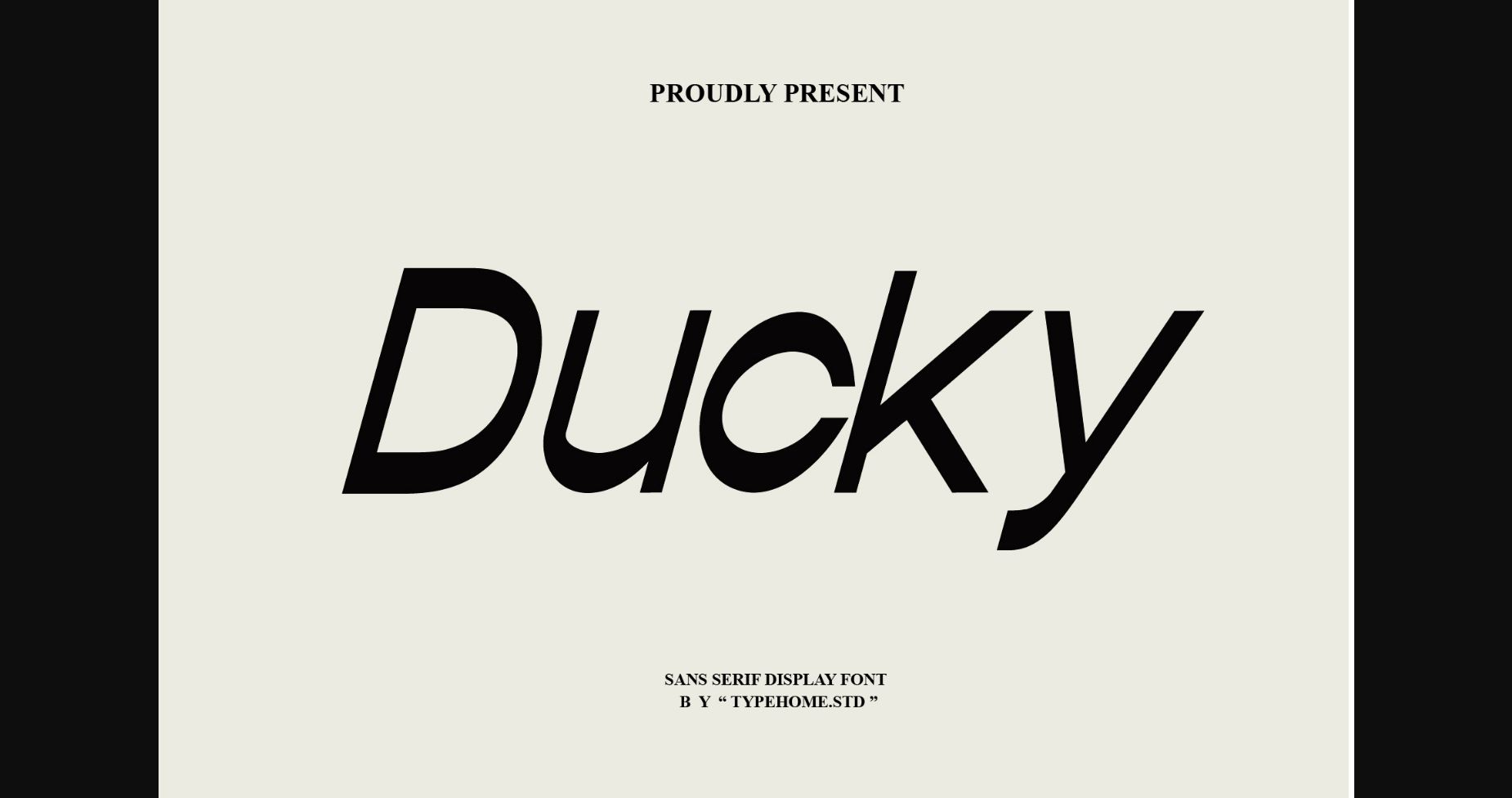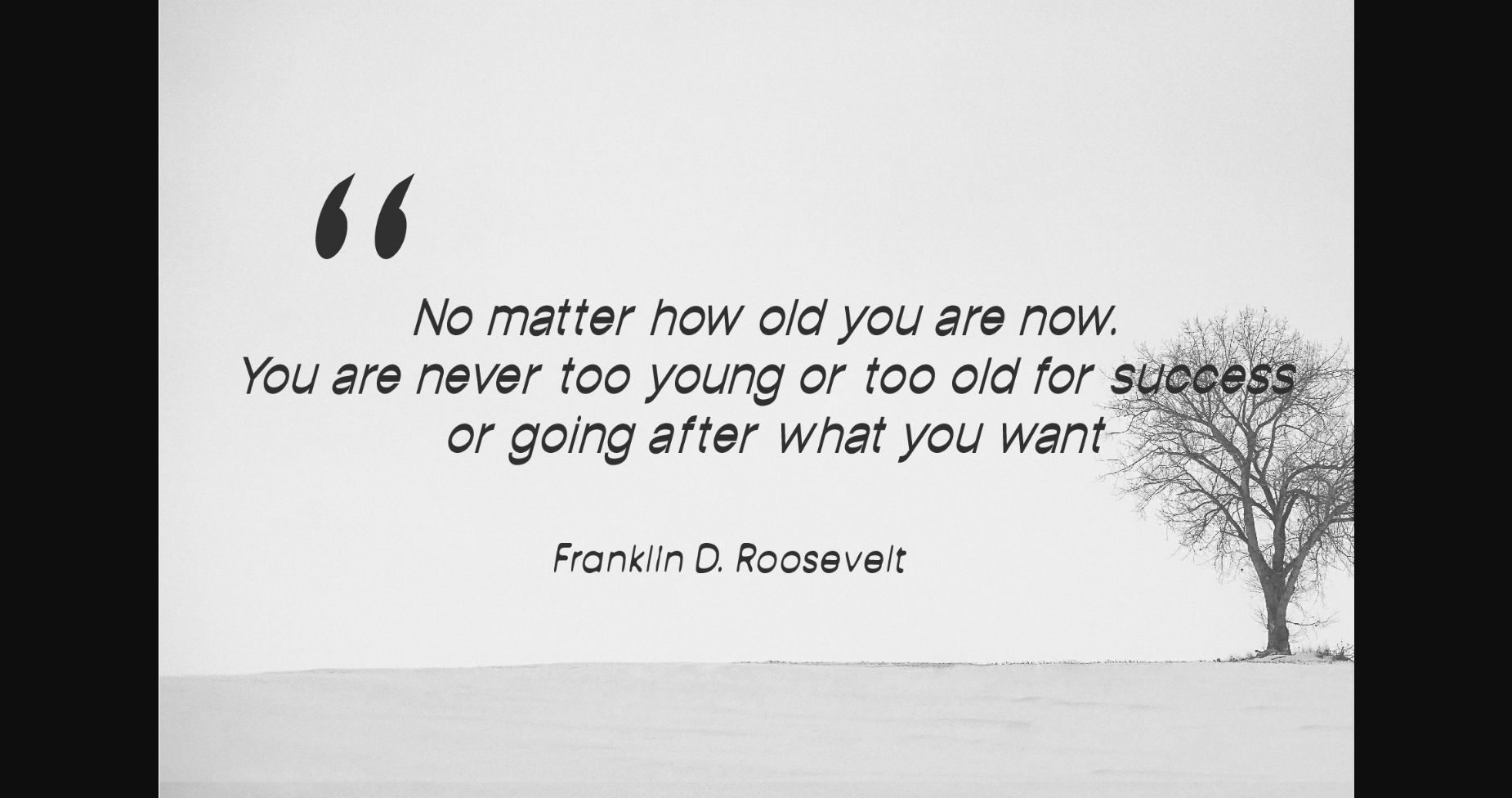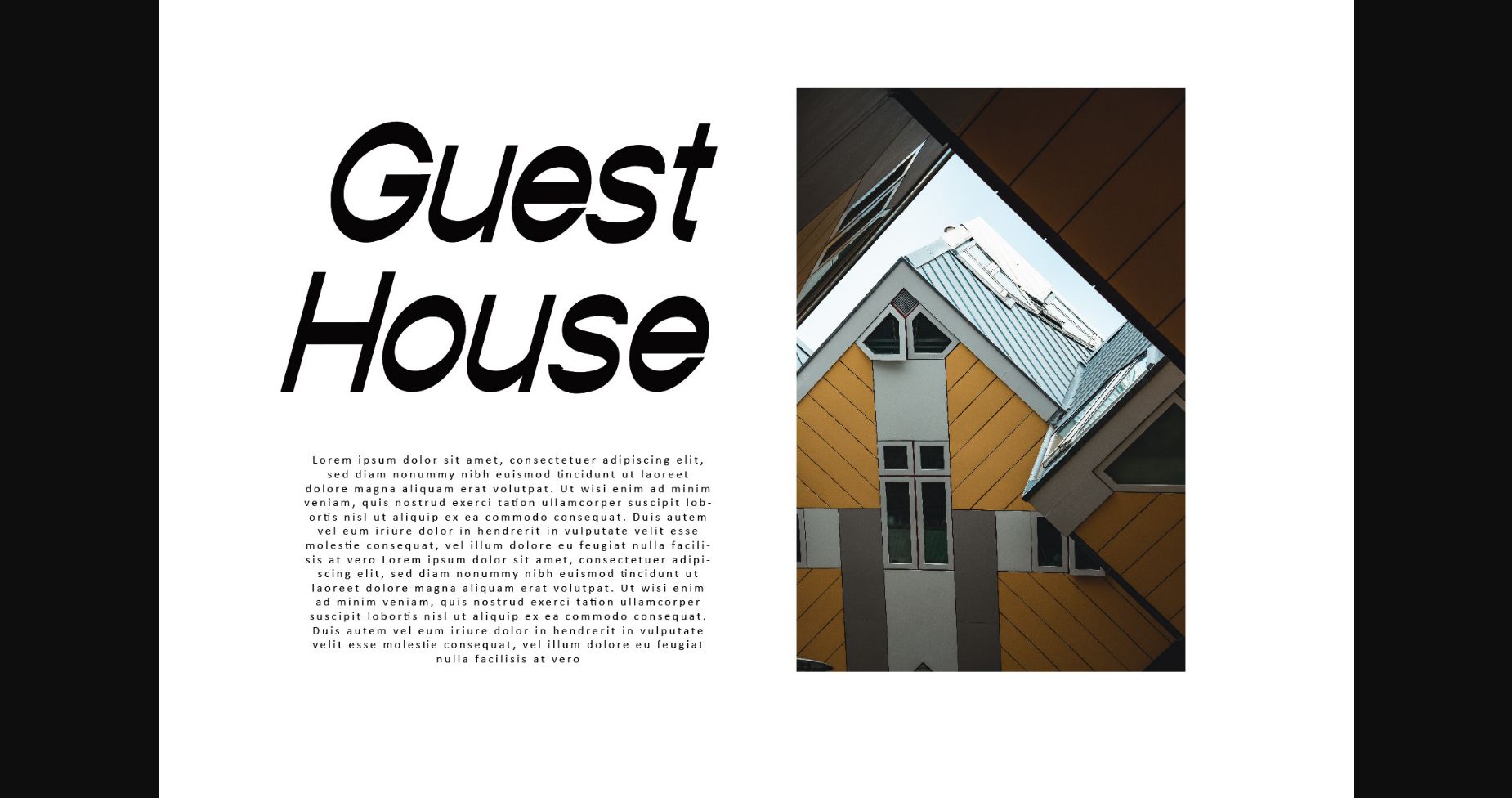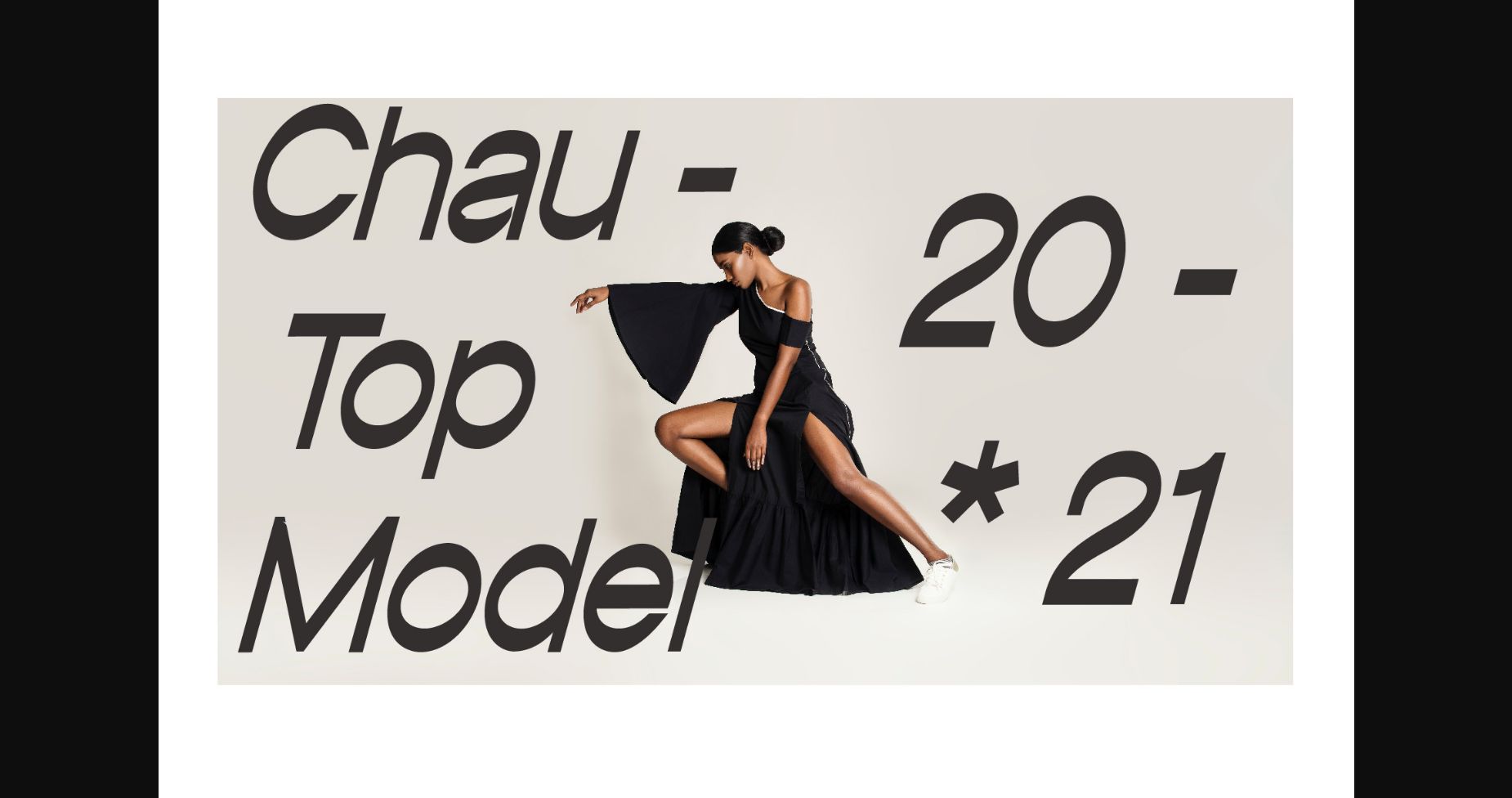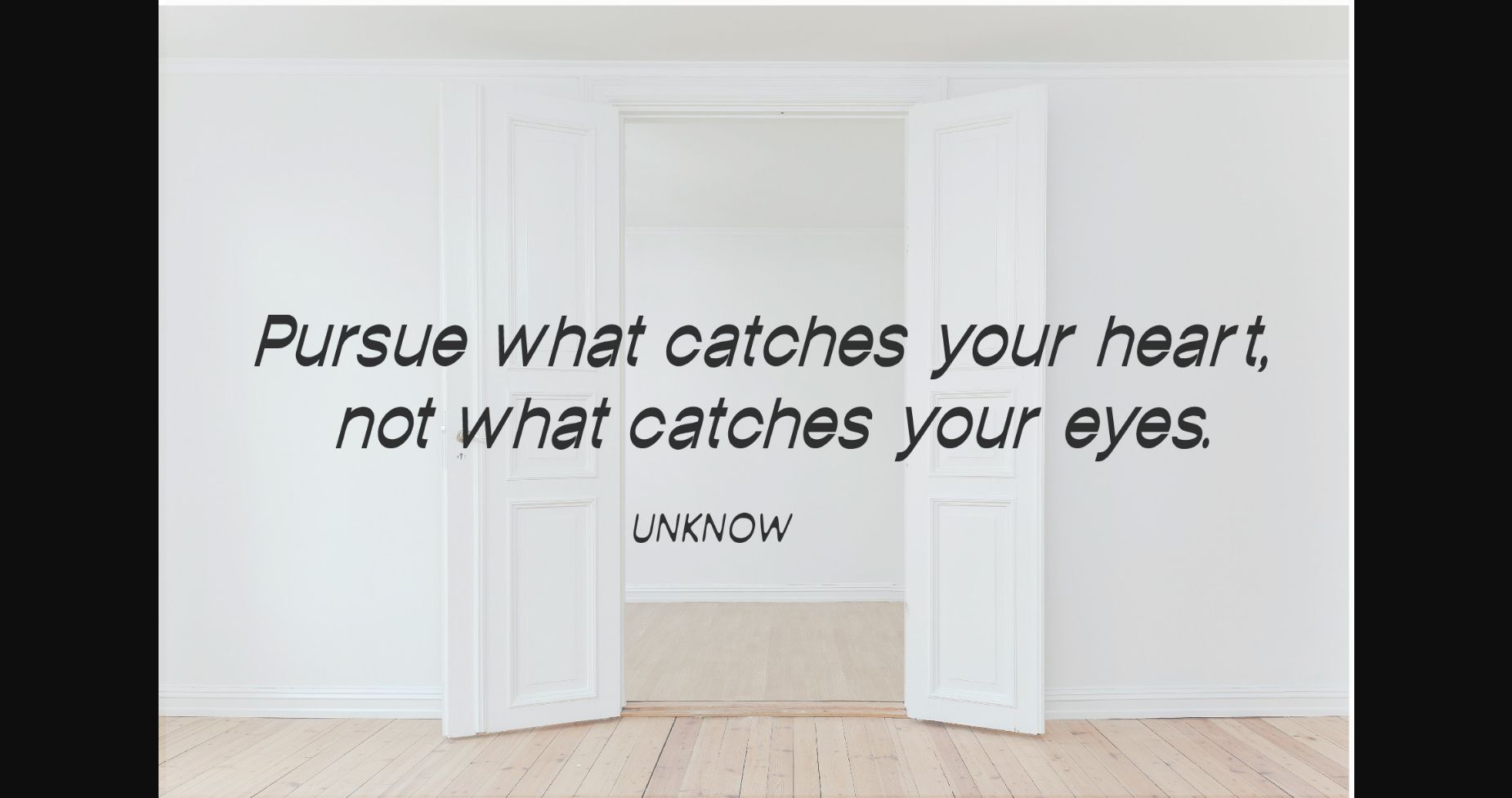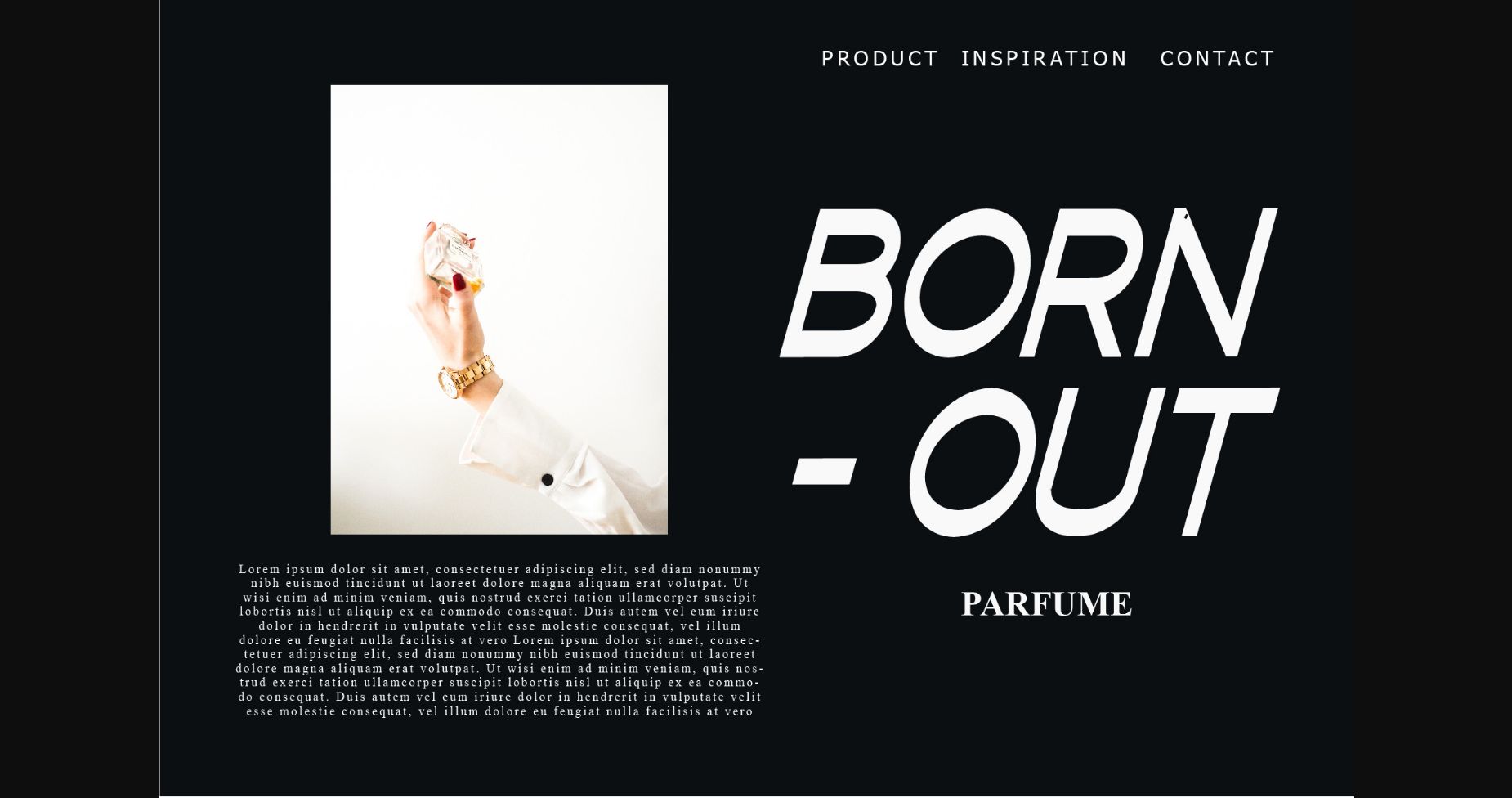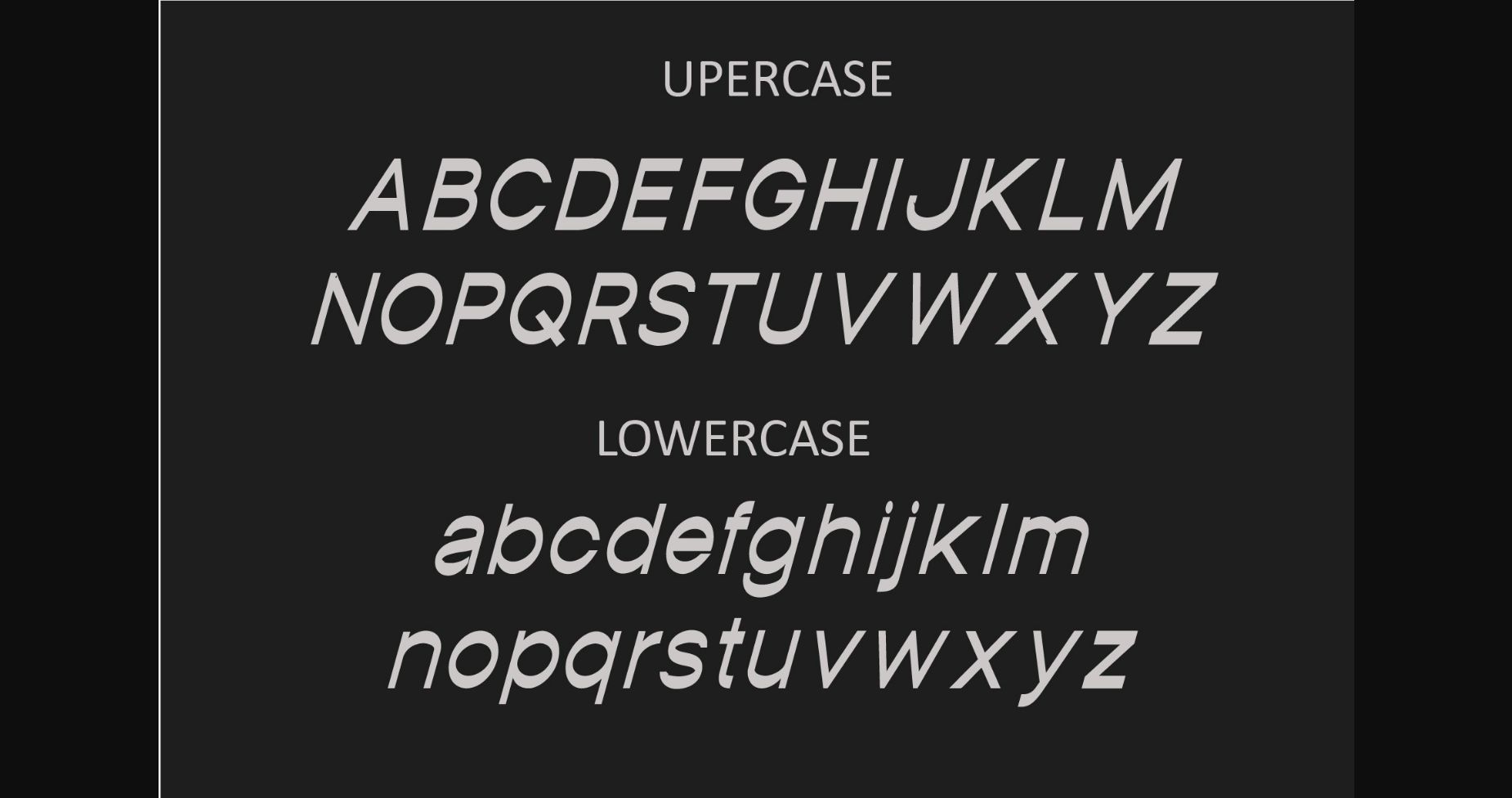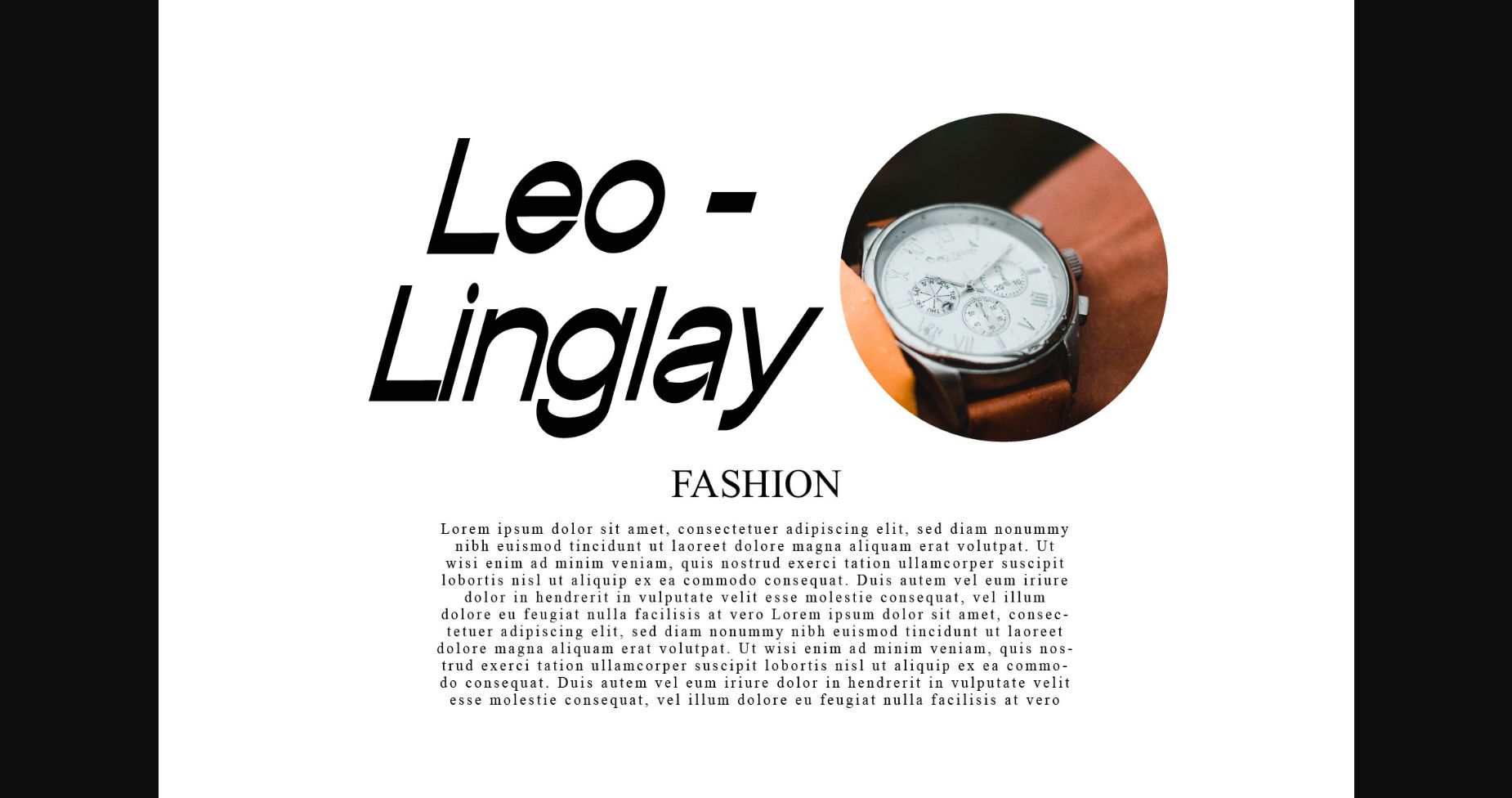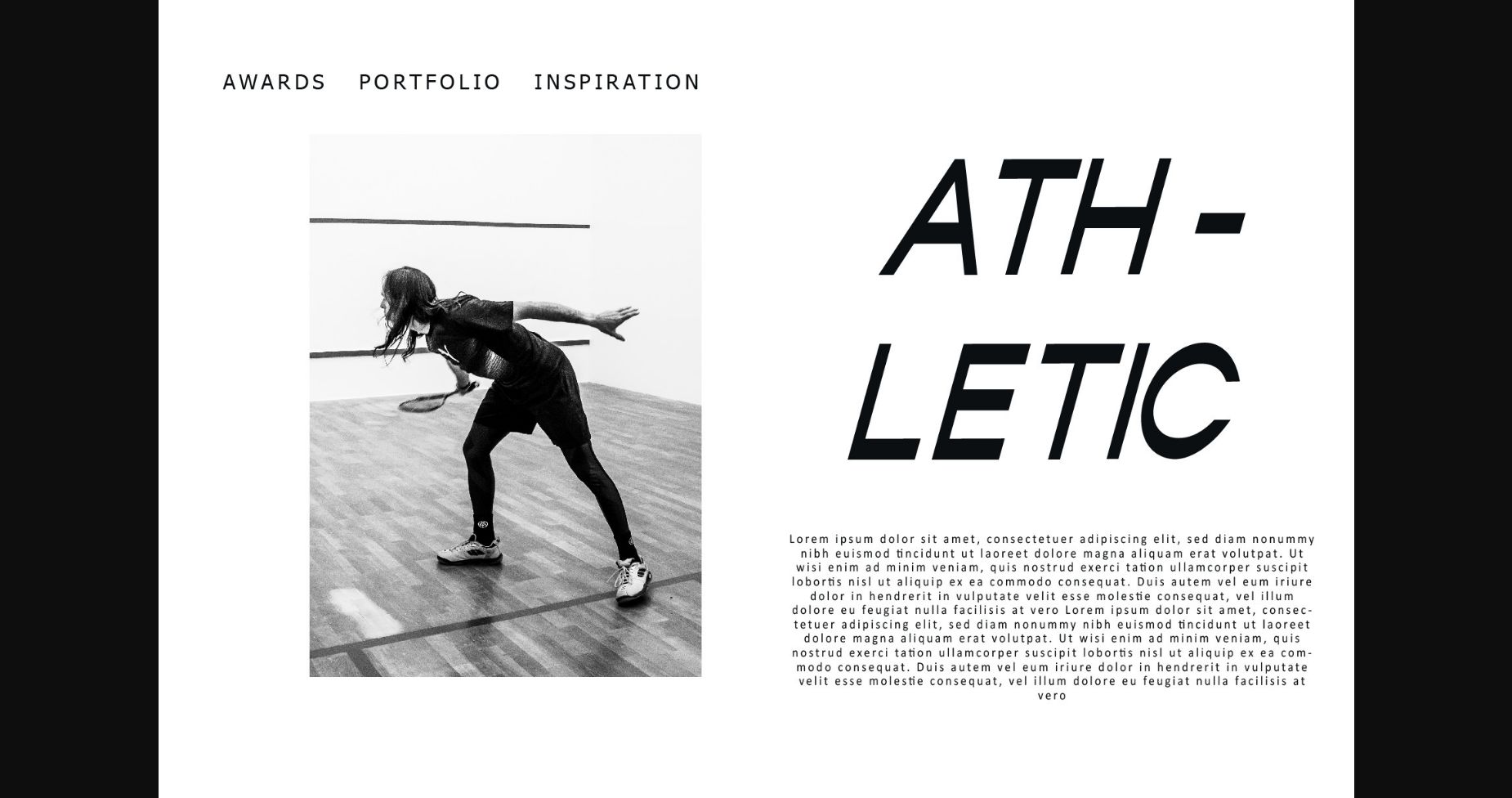
HomeSans Serif FontsDucky Font Sans Serif Fonts Ducky Font FacebookXPinterestWhatsApp 1 of 11 ... Ducky Font Poster 2... Ducky Font Poster 3... Ducky Font Poster 4... Ducky Font Poster 5... Ducky Font Poster 6... Ducky Font Poster 7... Ducky Font Poster 8... Ducky Font Poster 9... Ducky Font Poster 10... Ducky Font Poster 11... About Ducky Font Ducky is a minimal and neat sans serif font. It can easily be matched to an incredibly large set of projects, so add it to your creative ideas and notice how it makes them stand out! DOWNLOAD NOW People also explored Summer Grow Font Mackyloo Font Team of Stars Font Winslet Font Magdeburg Font MultiType Lines Narrow 2 Font Buchero Font Golden Dream Duo Font Miskola Font 314 0 TagsDuckyDucky Font Previous articleFather FontNext articleHazy Moon Font LEAVE A REPLY Cancel reply Comment: Please enter your comment! Name:* Please enter your name here Email:* You have entered an incorrect email address! Please enter your email address here Website: Save my name, email, and website in this browser for the next time I comment. Personal Use Free Adrenaline Personal Use Free Read more about this font Avagan Personal Use Free Read more about this font Barokah Personal Use Free Read more about this font Simple Personal Use Free Read more about this font BLOG Free vs Paid Fonts: Why Investing in Premium Fonts Is Worth It Free vs Paid Fonts: Why Premium Fonts Are Worth It in 2025 The debate of free vs paid fonts continues in the design world. While... Exploring Font Trends Best Fonts for YouTube Videos: Make Your Thumbnails Stand Out Top 7 Google Fonts Alternatives for Faster and Privacy-Friendly Web Design (2025)